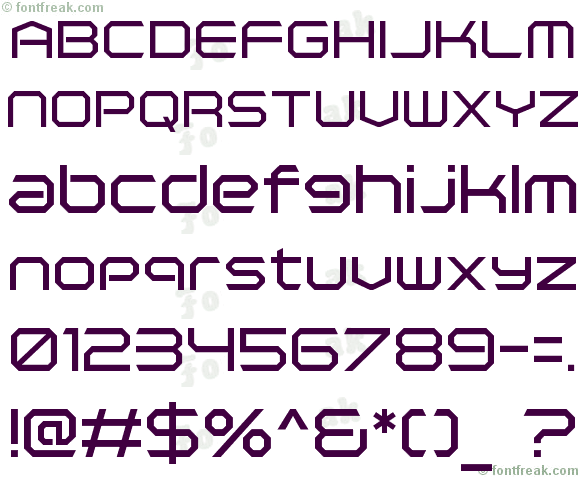
Polentical Neon Regular
Polentical Neon Regular is a striking display font designed by Jayvee Enaguas, characterized by its bold and modern aesthetic. This sans-serif typeface features a unique geometric structure with clean lines and an energetic vibe, making it ideal for a variety of creative projects. The stroke weight is consistent, giving it a sturdy appearance, while the spacing is thoughtfully balanced, enhancing readability even in larger formats. The font's design includes subtle decorative elements that evoke a sense of urban flair, reminiscent of neon signage, which adds a dynamic touch to any design.
This versatile font is perfect for use in several applications. It shines in movie posters, where its bold character can showcase titles and taglines with impact. Additionally, Polentical Neon Regular is well-suited for event flyers and banners, capturing attention with its vibrant style. Restaurant menus can also benefit from this font, as it can convey a modern and trendy atmosphere that appeals to a younger audience. Graphic designers will find it a valuable asset for branding projects, allowing them to create memorable logos and marketing materials that stand out.
What sets Polentical Neon Regular apart is its ability to blend boldness with a playful spirit, making it an excellent choice for projects that require a touch of personality. Its unique design elements and versatility ensure that it will make a lasting impression, no matter the context in which it is used.